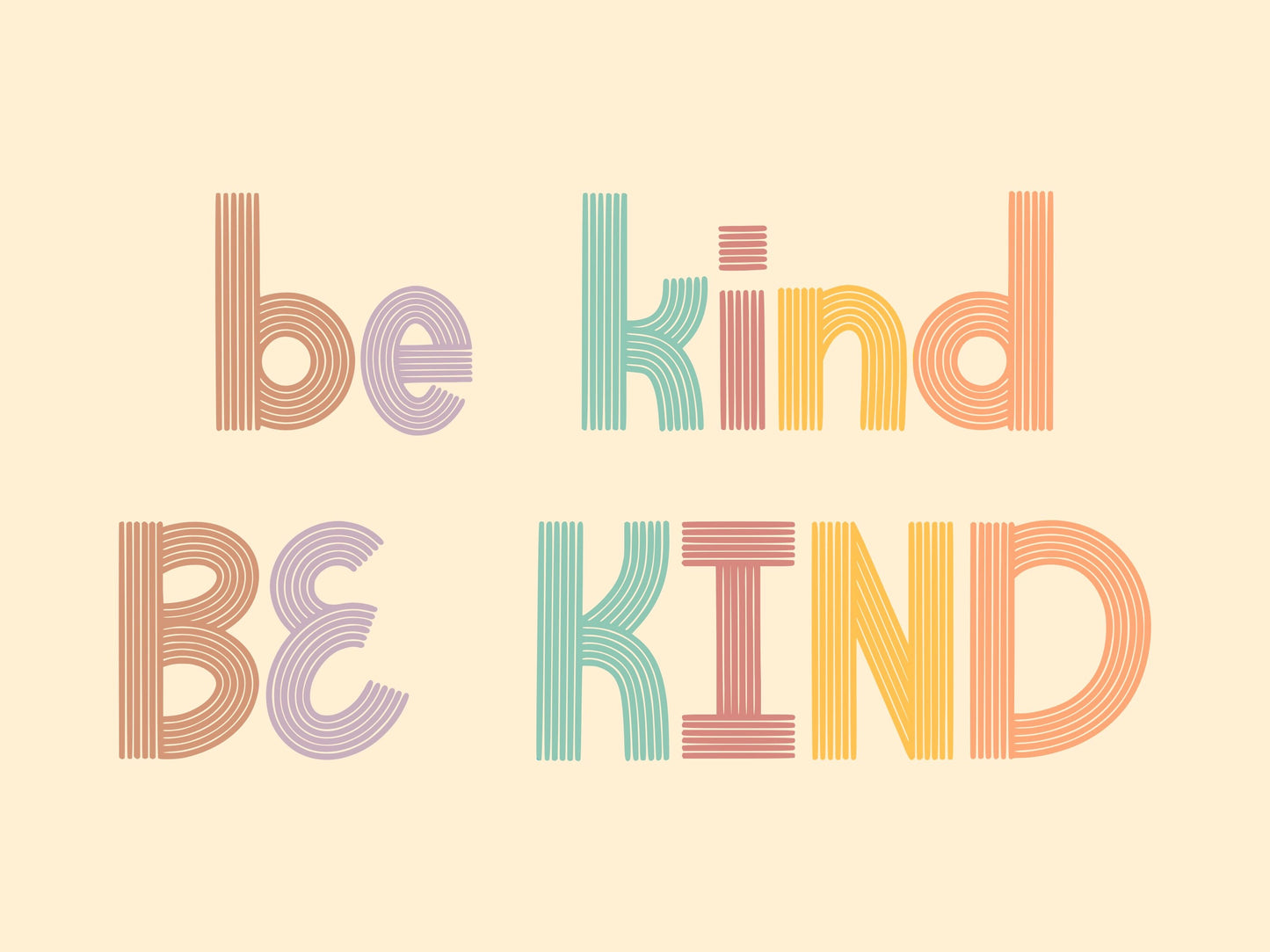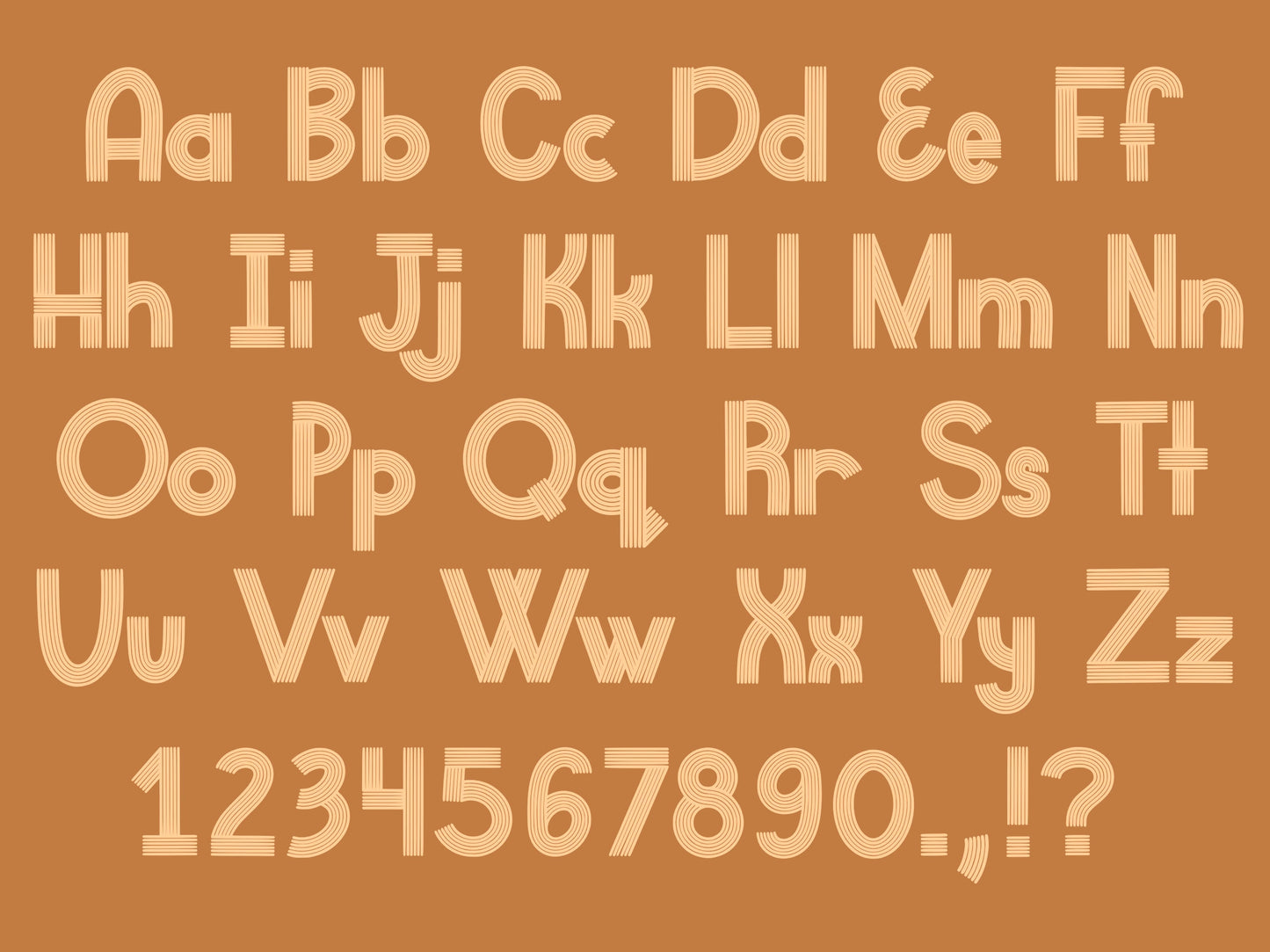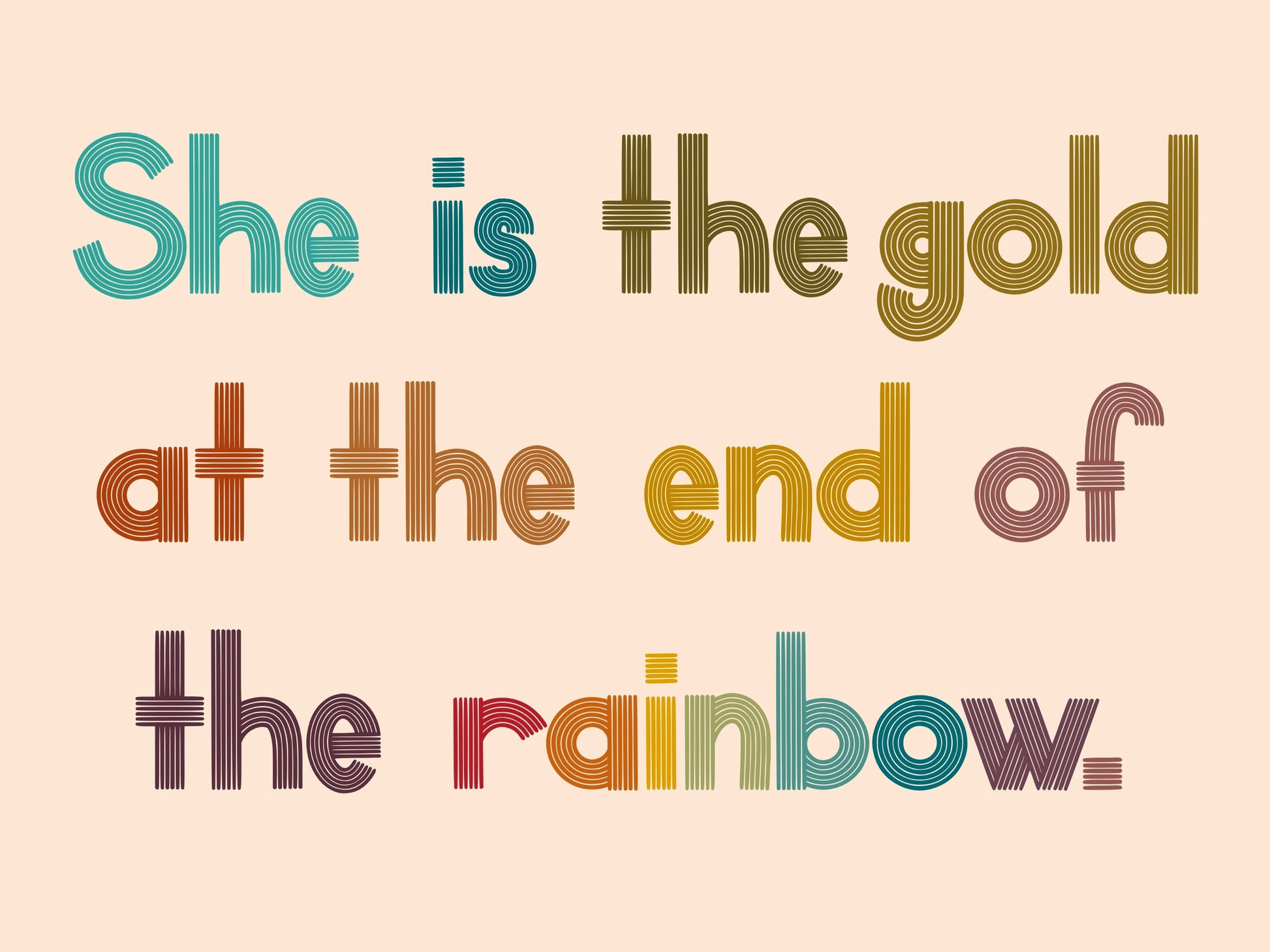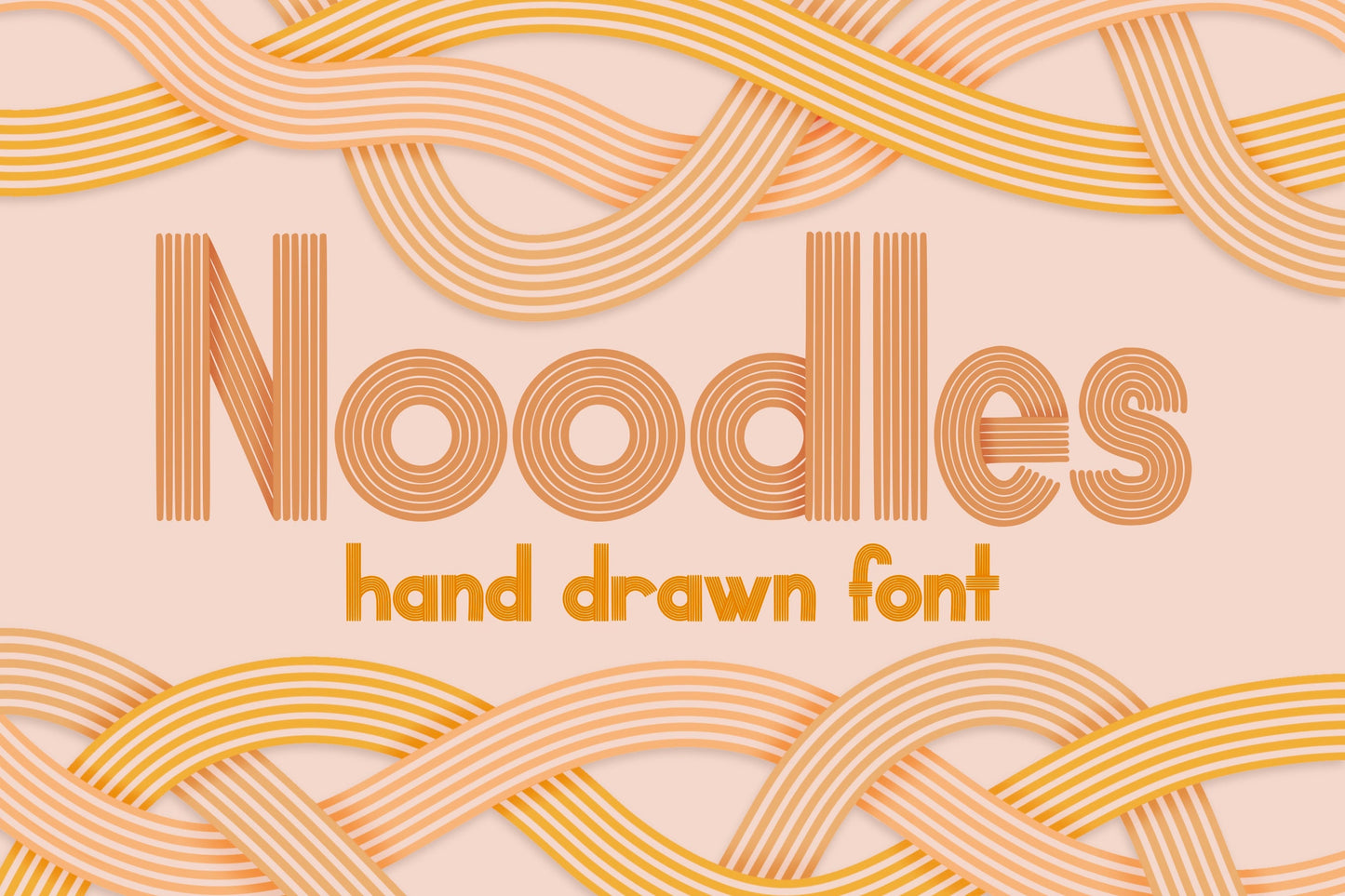
Noodles Hand Drawn Font
This is my Noodles handwritten/hand drawn font. This unique multi line font will add a fun, unique, handmade flare to your design! It would be perfect on designs for posters, stickers, t-shirts, and anything else you can think of!